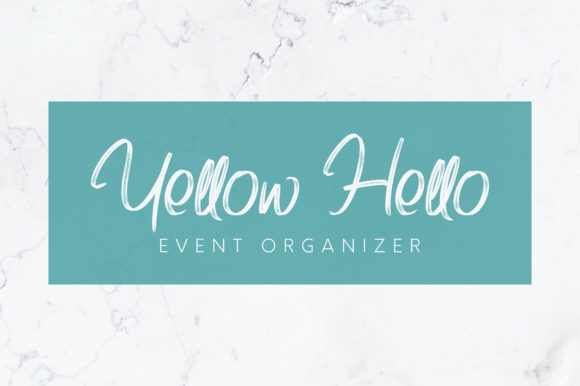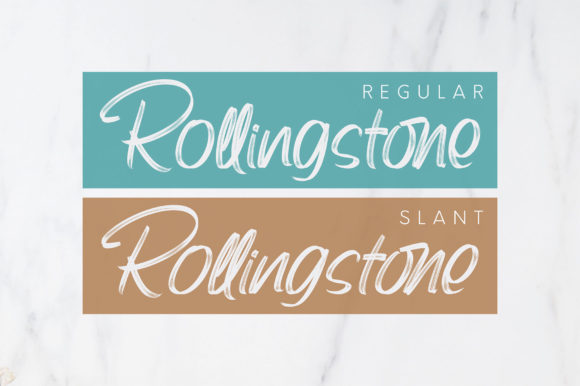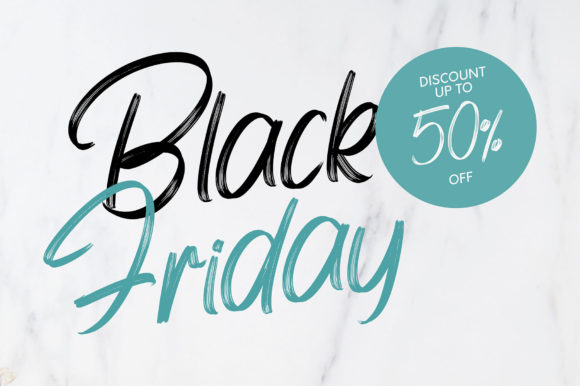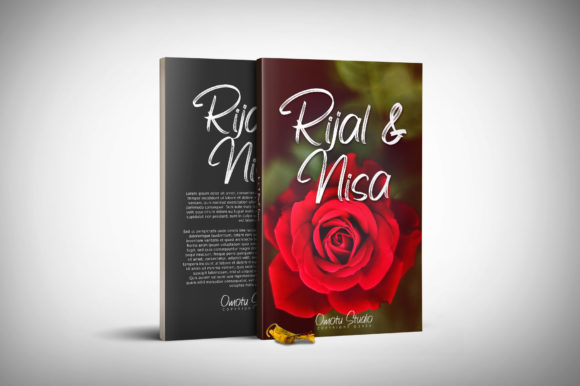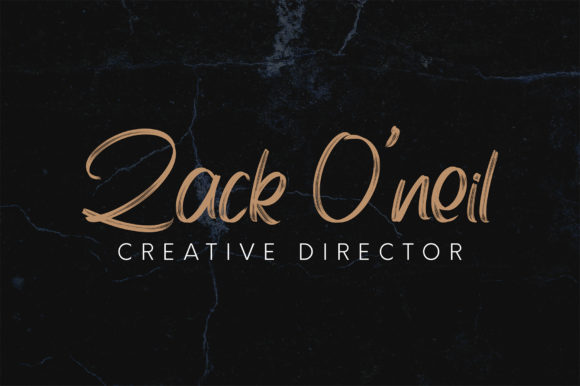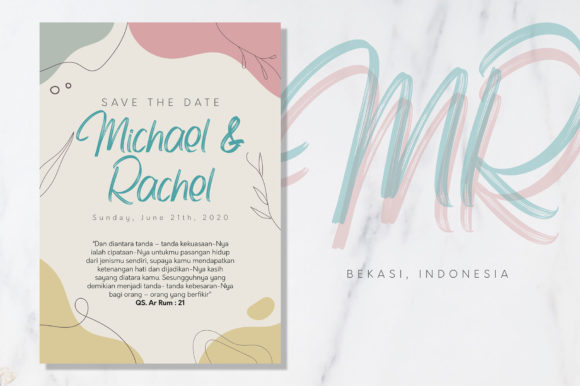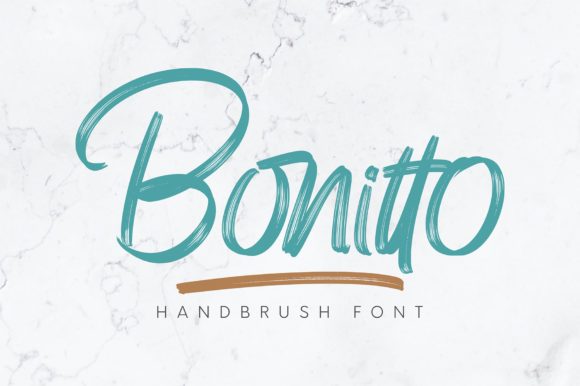
Introducing Bonitto Font: The Lovely Handwritten Font for Creative Projects
Are you looking for a font that can add a personal touch to your creative projects? Look no further than Bonitto Font, a lovely handwritten font designed with the help of a joyful brush pen. With its incredibly versatile style, Bonitto Font is perfect for creating gorgeous wedding invitations, beautiful stationary art, eye-catching social media posts, and much more!
The Story Behind Bonitto Font
Bonitto Font is a carefully crafted font that is designed to bring a sense of joy and playfulness to your projects. The font is created using a joyful brush pen, which gives it a unique and personal feel. The designer of Bonitto Font aimed to create a font that is not only beautiful but also versatile, making it suitable for a wide range of creative projects.
Key Features of Bonitto Font
- Handwritten style: Bonitto Font has a beautiful handwritten style that adds a personal touch to your projects.
- Versatile: The font is incredibly versatile, making it suitable for a wide range of creative projects, from wedding invitations to social media posts.
- Joiful brush pen feel: The font is designed using a joyful brush pen, which gives it a unique and playful feel.
- Easily readable: Despite its handwritten style, Bonitto Font is easily readable, making it perfect for body text and captions.
Uses of Bonitto Font
Bonitto Font is perfect for a wide range of creative projects, including:
- Wedding invitations: Create beautiful and unique wedding invitations that will set the tone for the big day.
- Stationary art: Use Bonitto Font to create beautiful stationary art, such as greeting cards, thank you cards, and more.
- Social media posts: Add a personal touch to your social media posts with Bonitto Font, making them stand out from the crowd.
- Branding and packaging: Use Bonitto Font to create unique and eye-catching branding and packaging for your business.
Tips for Using Bonitto Font
Here are some tips for using Bonitto Font in your creative projects:
- Experiment with different colors: Bonitto Font looks great in a variety of colors, so don’t be afraid to experiment and find the perfect color for your project.
- Mix and match with other fonts: Bonitto Font pairs well with other fonts, so try mixing and matching it with other fonts to create a unique look.
- Use it for headlines and titles: Bonitto Font is perfect for headlines and titles, adding a personal touch to your project.
Bonitto Font is a lovely handwritten font that is perfect for creative projects. With its incredibly versatile style and joyful brush pen feel, it’s sure to add a personal touch to your projects. Whether you’re a designer, crafter, or simply someone who loves to create, Bonitto Font is a great addition to your font collection.